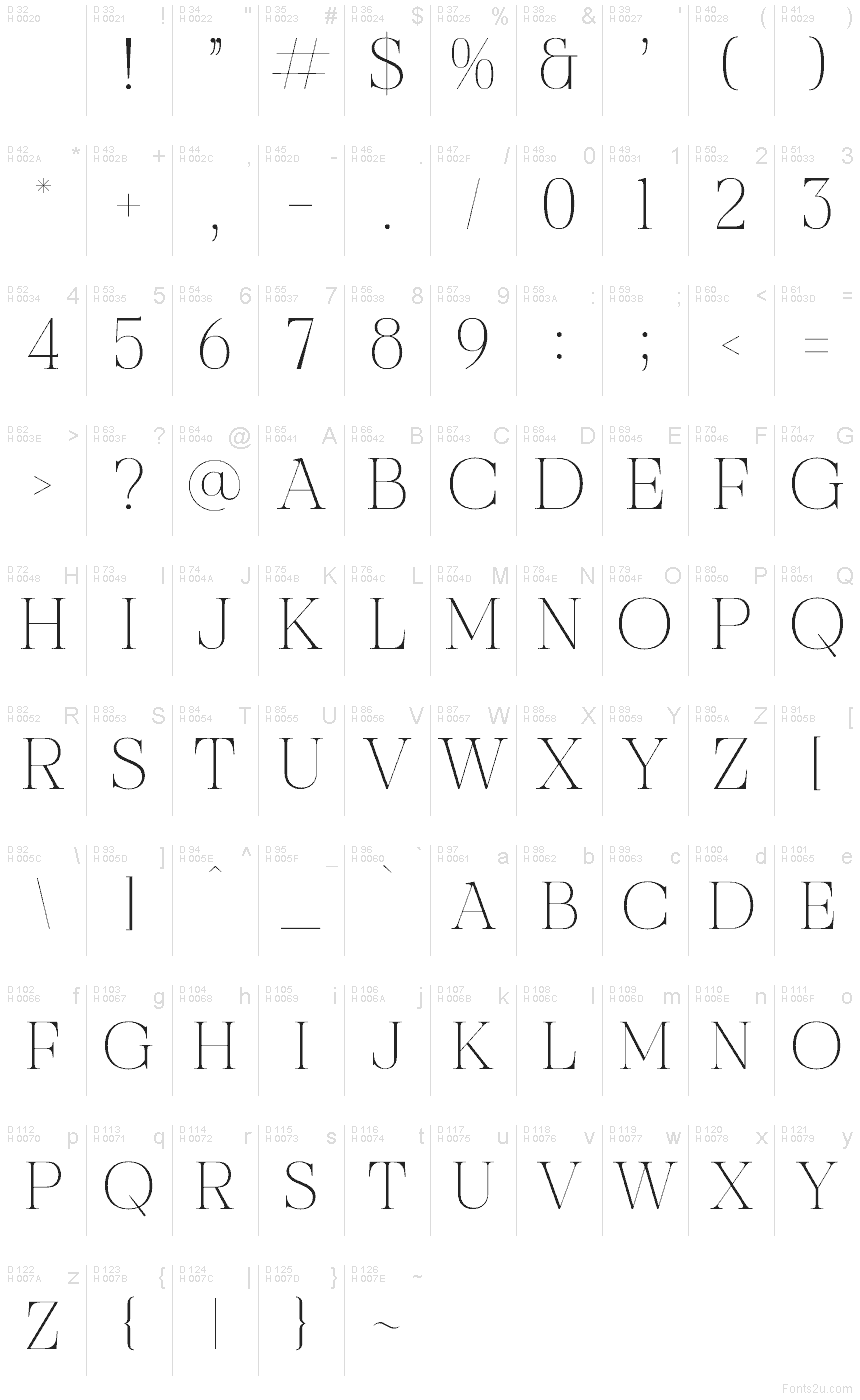
Nocashe
Nocashe font by Storytype Studio is a free serif font that combines elegance with a sophisticated modern twist. With its light weight, high contrast, and refined curves, it offers a timeless and classic aesthetic that seamlessly blends the old and new to deliver an elegantly unique style.
Nocashe stands out as the perfect choice for logos, magazine covers, editorials, social media posts, invitations or online pages. Its classy looks feel at home on clothing labels or branding ideas of luxury goods such as perfumes and jewelry items. Use carefully with short product descriptions that require special attention or long paragraph text sections at any size readable comfortable size.